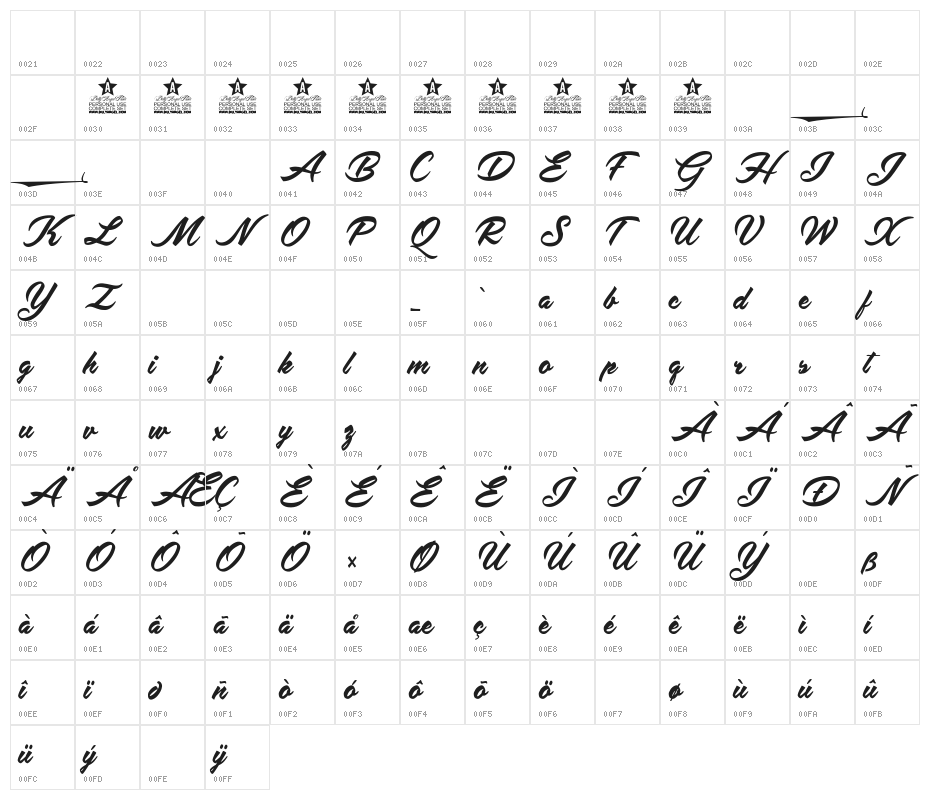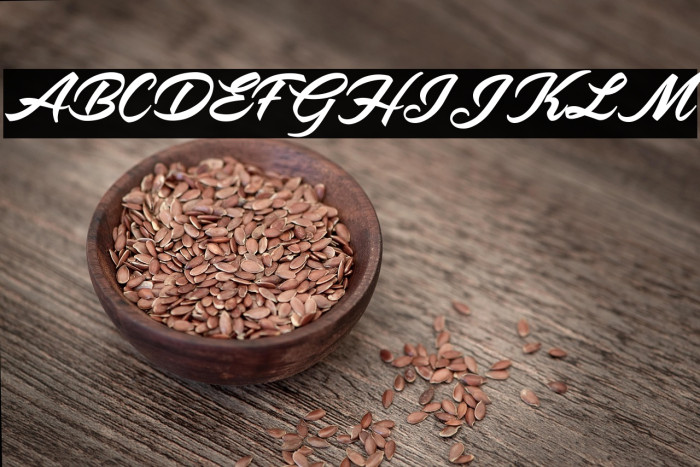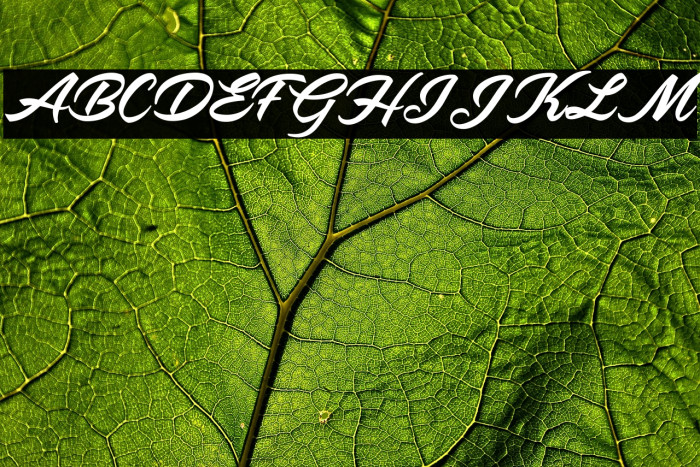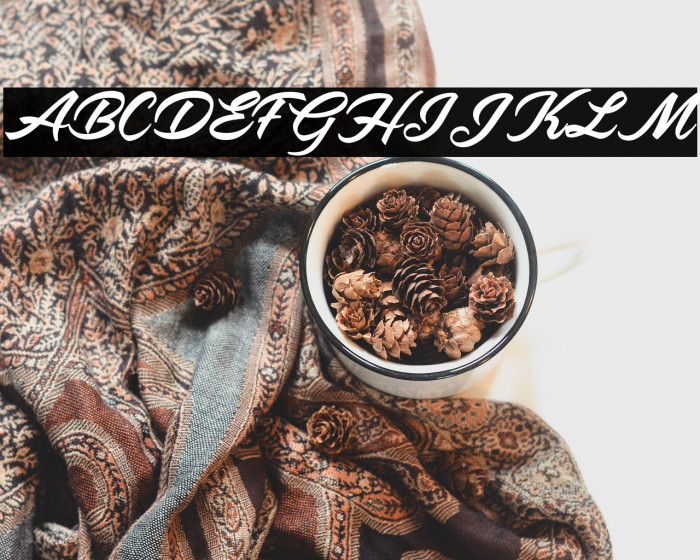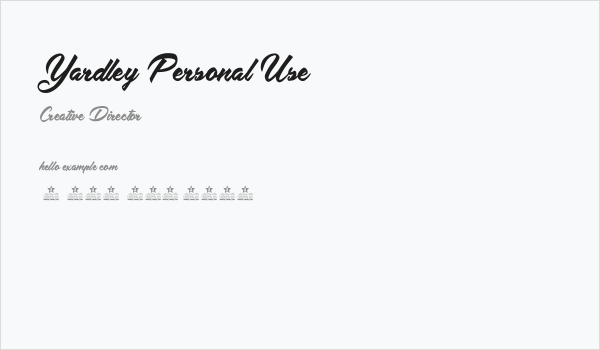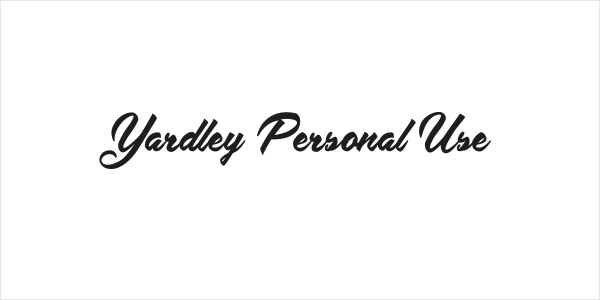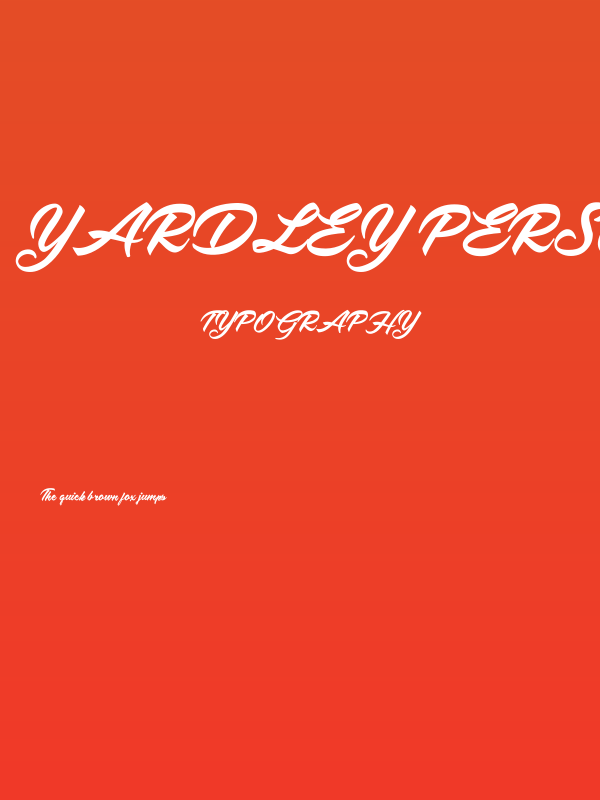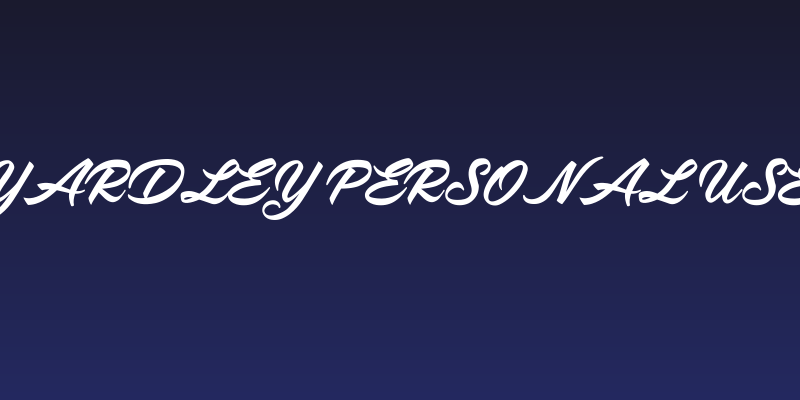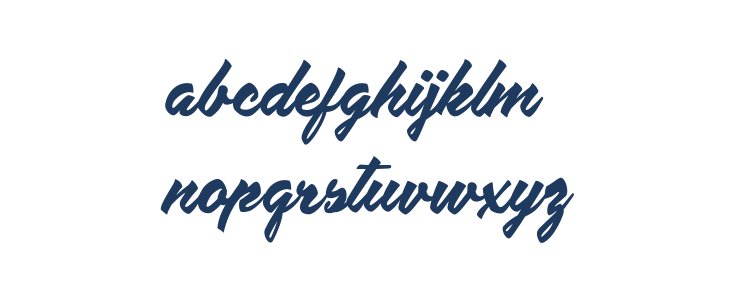
Yardley Personal Use Font
Yardley Personal Use Description
This font features a flowing, cursive style with elegant, sweeping curves and a sense of fluidity. The uppercase letters are particularly ornate, with exaggerated loops and flourishes that give it a sophisticated and artistic appearance. The lowercase letters maintain a consistent style, with smooth connections between characters, enhancing its readability despite the decorative nature. The font exudes a sense of elegance and charm, making it suitable for formal and creative applications. Its bold strokes and high contrast between thick and thin lines add to its visual impact, making it stand out in any design.
| Overall Style | Elegant, Decorative |
| Use Case | Logos, Invitations, Decorative Text |
| Proposed Projects | Ideal for wedding invitations, elegant branding, greeting cards, and artistic projects. |